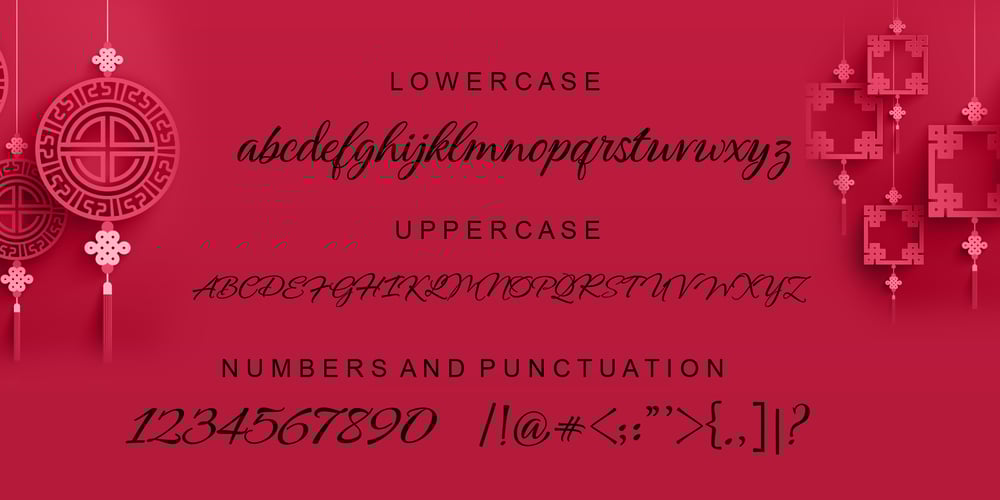
Regards Script Font Family was designed by Teuku Muslyawan and published by DonyaDesign. Regards Script contains 1 styles and family package options. Regards Script is a new modern script font with an irregular baseline. Trendy and feminine style. Regards looks lovely on wedding invitations, thank you cards, quotes, greeting cards, logos, business cards and more. Perfect for using in ink or watercolour. Including initial and terminal letters, alternates and multiple language support. To enable the OpenType Stylistic alternates, you need a program that supports OpenType features such as Adobe Illustrator CS, Adobe Indesign & CorelDraw X6-X7, Microsoft Word 2010 or later versions. There are additional ways to access alternates/swashes, using Character Map (Windows), Nexus Font (Windows), Font Book (Mac) or a software program such as PopChar (for Windows and Mac)